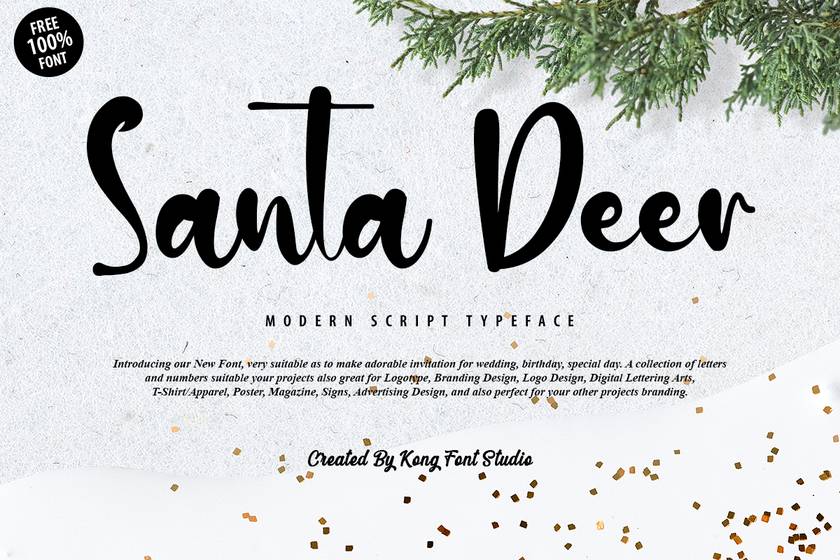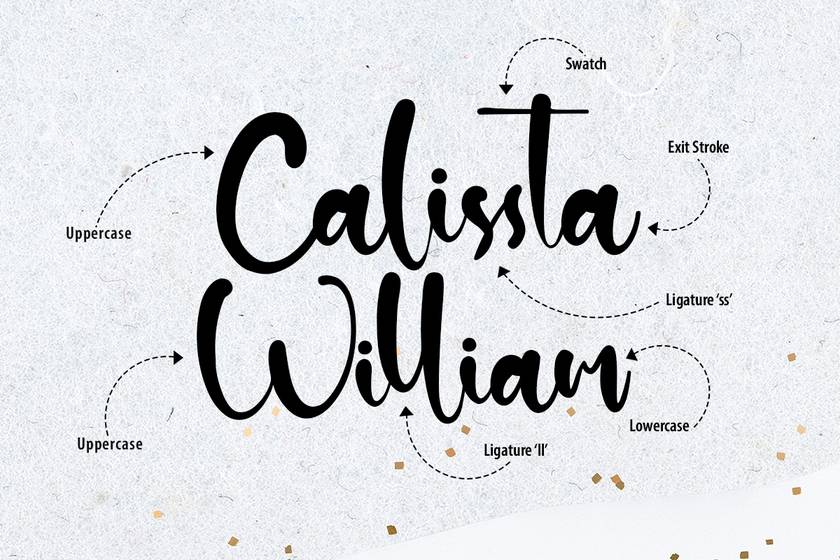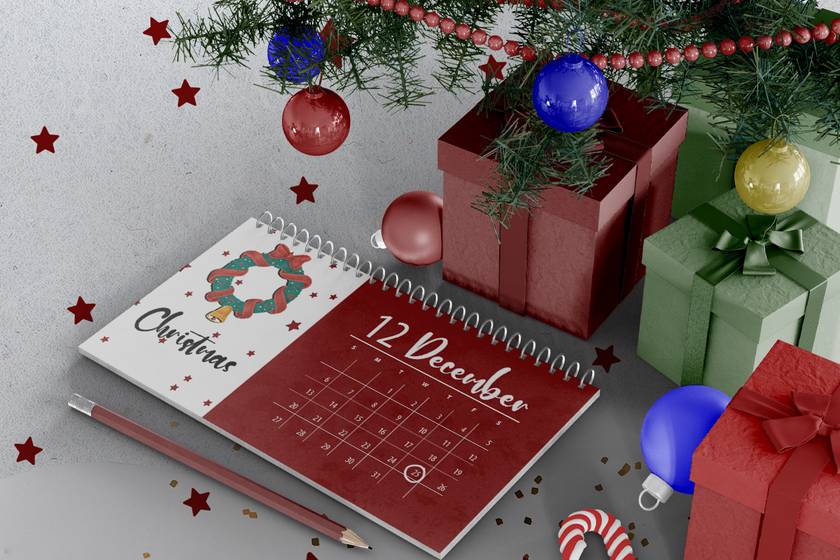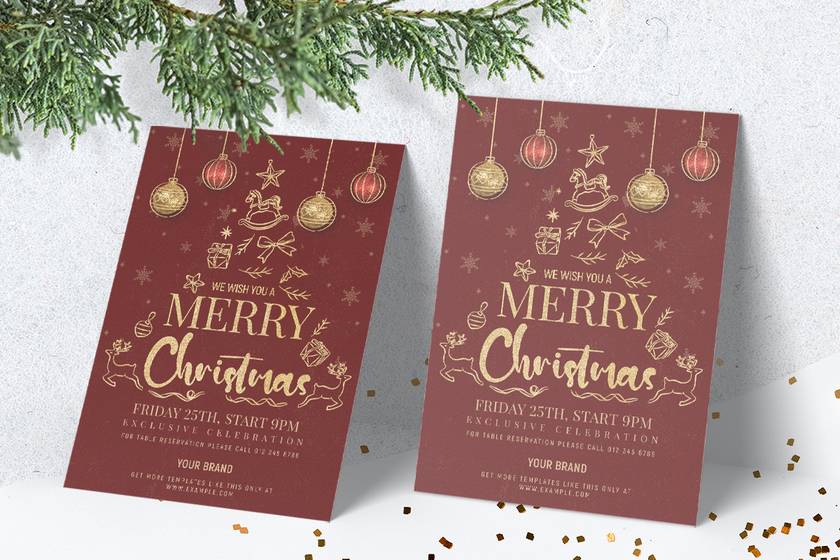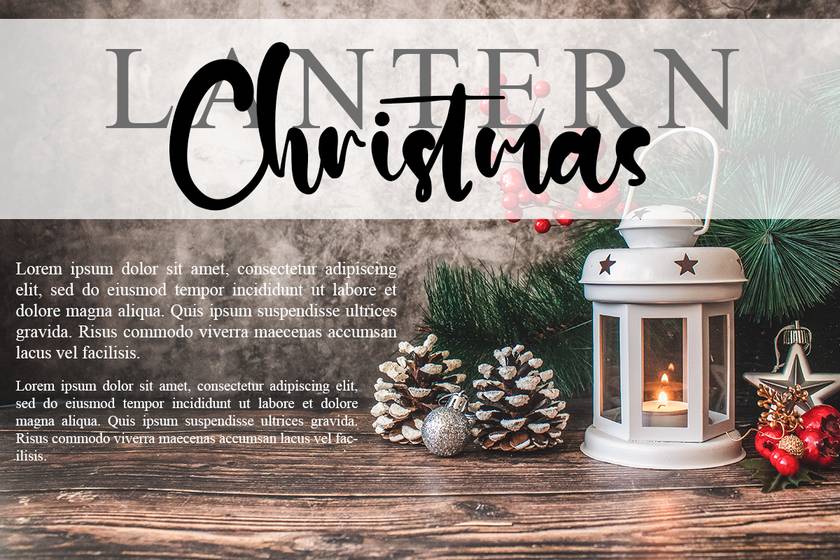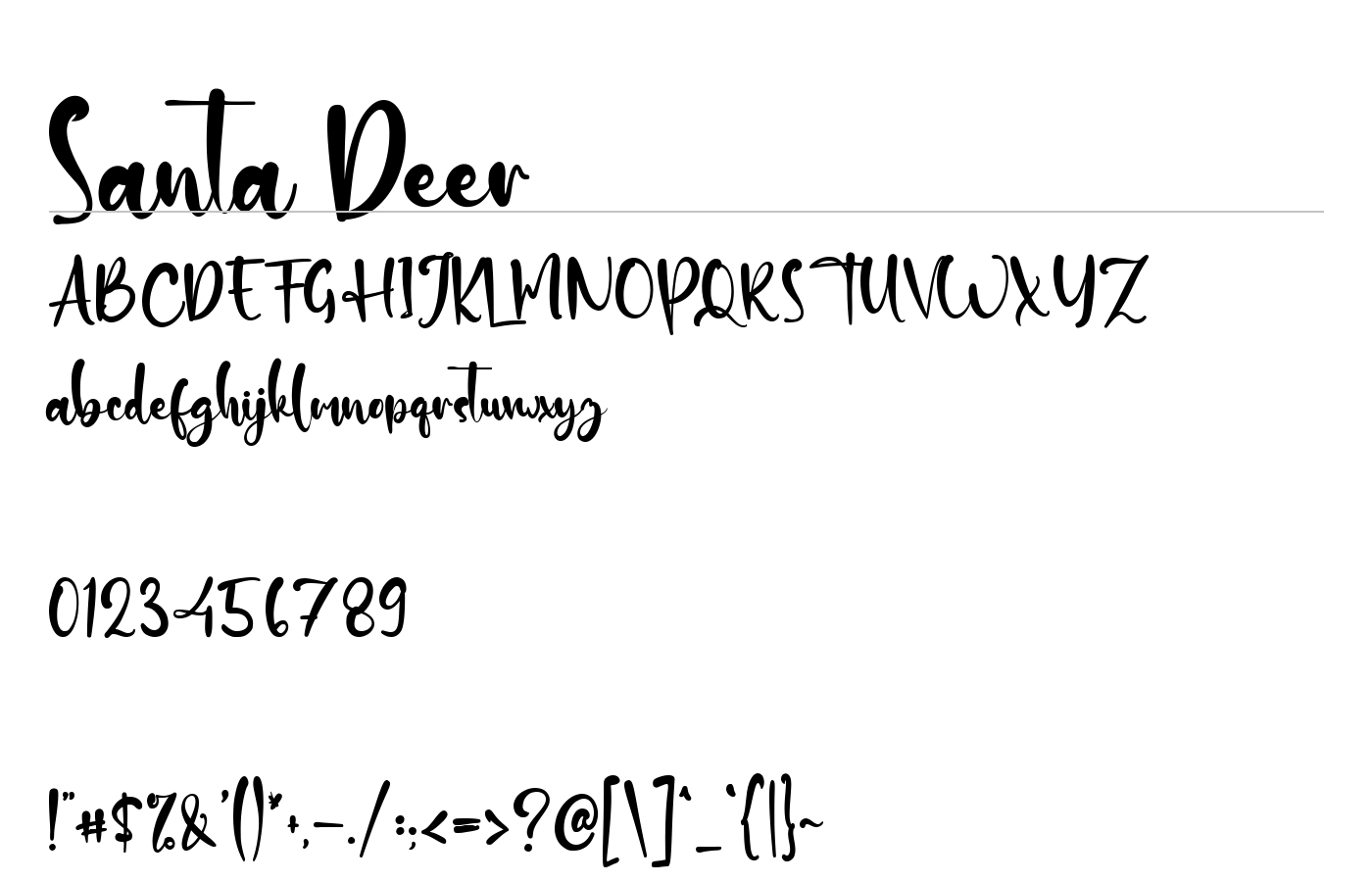
Santa Deer is a playful and modern script font with a hand-drawn feel, featuring a lively mix of thick and thin strokes that add character and charm. Its tall, slightly condensed letterforms and whimsical details make it perfect for creative branding, casual invitations, and eye-catching headlines that want to convey warmth and personality. This font works best in designs needing a friendly, approachable touch with a fun and stylish flair.
Santa Deer Font
About Santa Deer Font